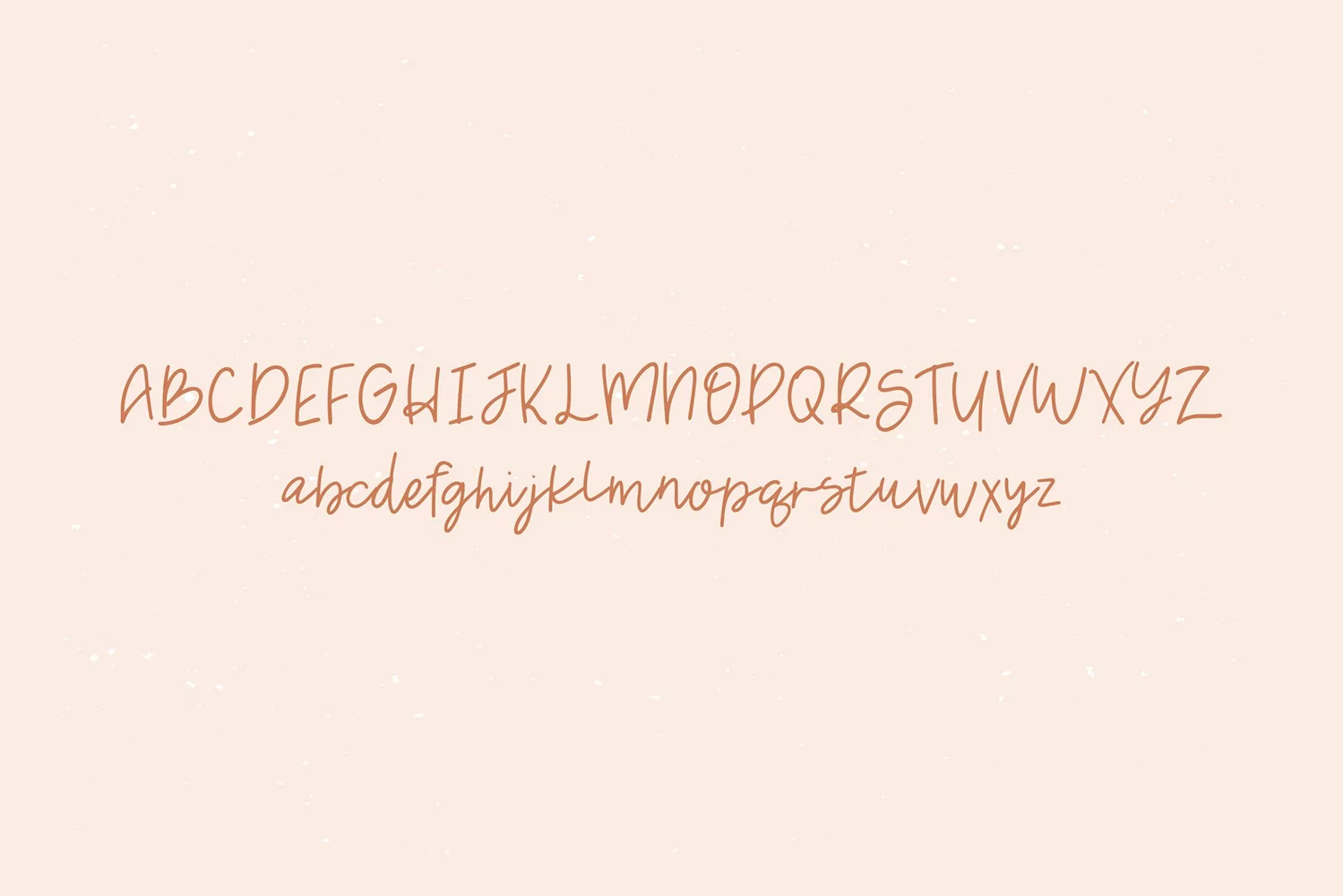
JUST PEACHY a Hand Lettered Script Font
"Just Peachy" a signature script font
{ A typographic font hand-lettered with love by Dixie Type Co. }
-Upper and lowercase glyphs